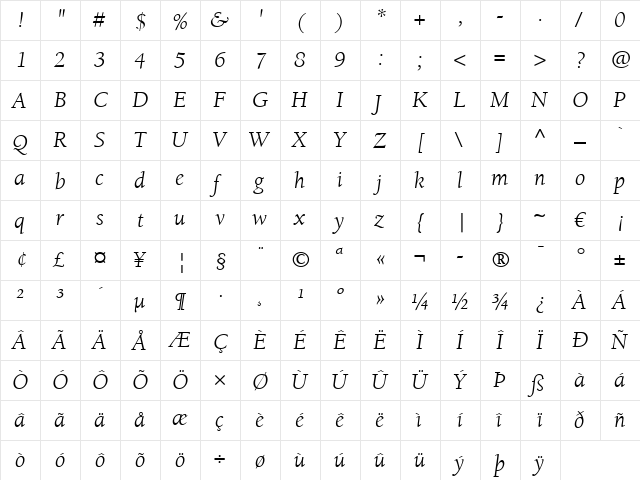
Berkeley LT Book Italic Font Preview
Design Context for Berkeley LT Book Typeface
Berkeley LT Book takes a measured approach to typography — its balanced proportions and neutral character make it a reliable workhorse for both digital and print work. The dynamic lean of this cut emphasises speed and emphasis in any layout. Its slender proportions lend an understated elegance to any composition.
Pro Tip: Try Berkeley LT Book for annotation and caption copy alongside an upright companion — the contrast in angle creates a dynamic but ordered typographic system.